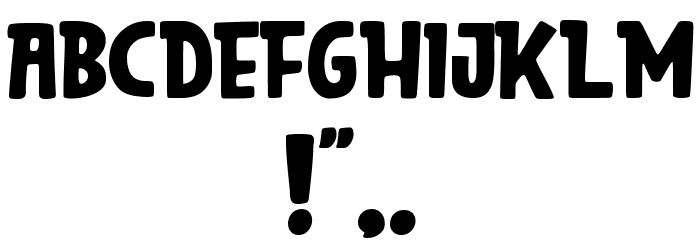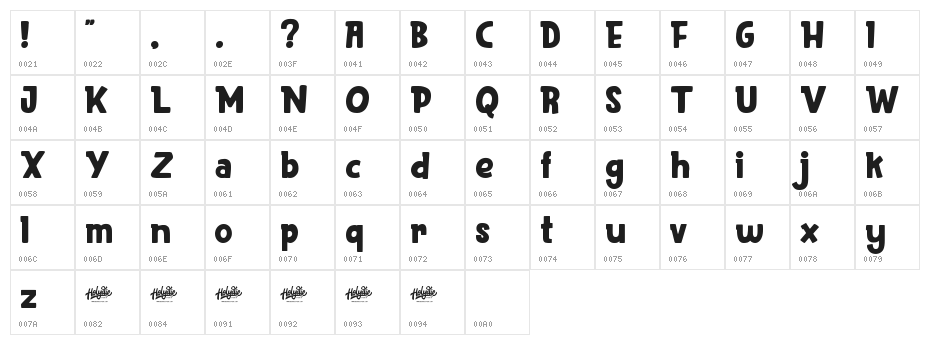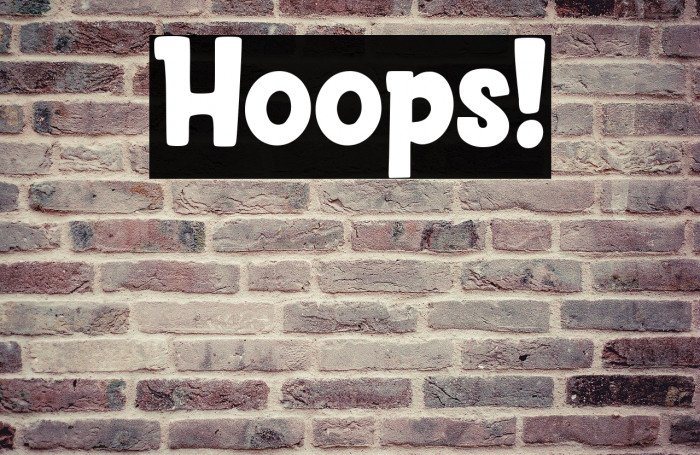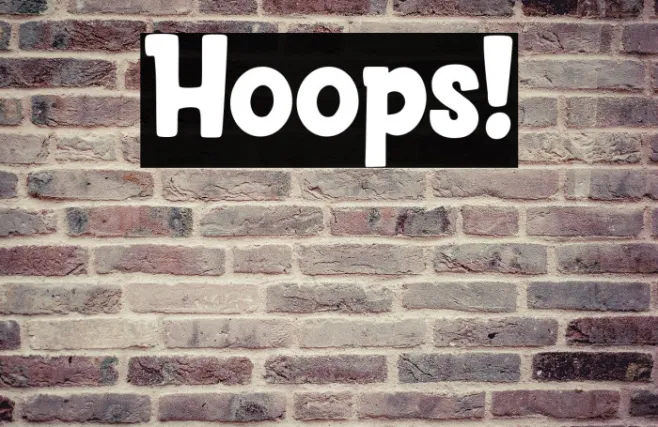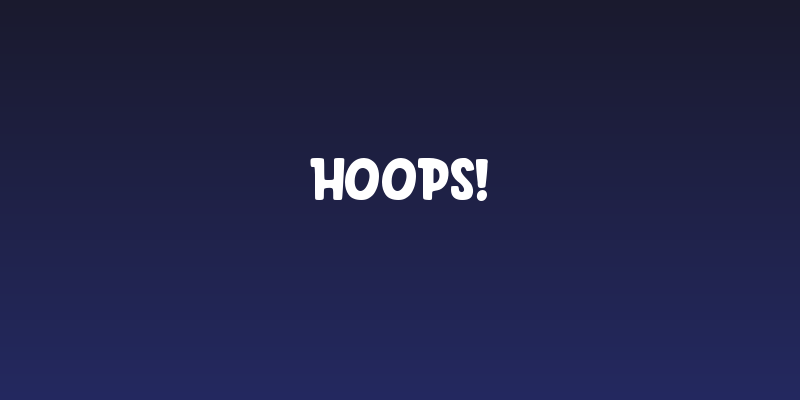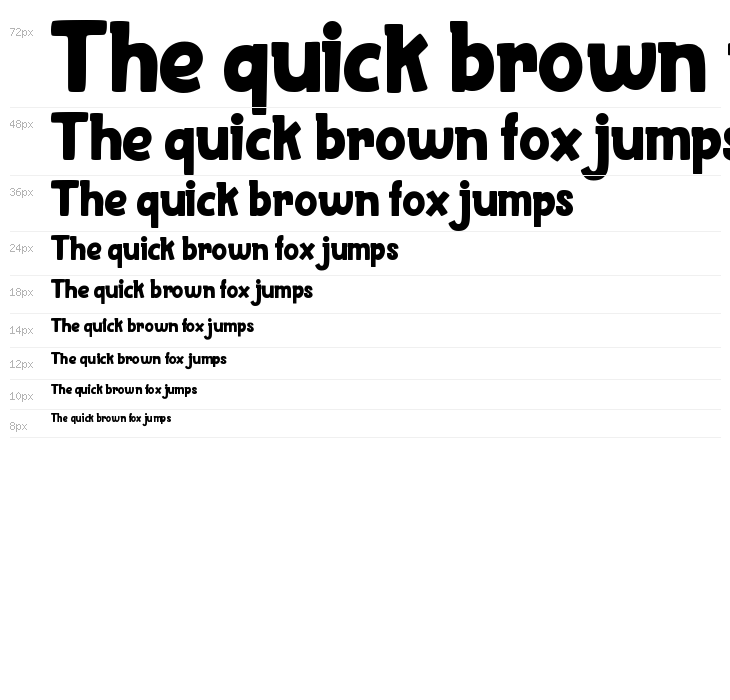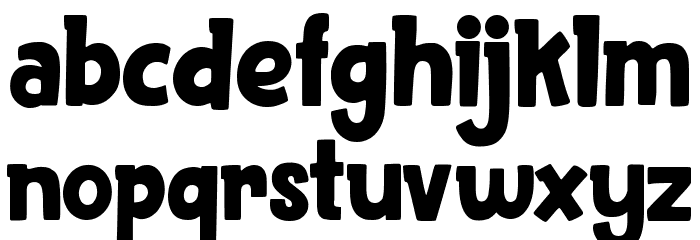
Hoops! Font
Hoops! Description
This font features a playful and bold style with rounded edges and a slightly irregular form, giving it a hand-drawn appearance. The uppercase and lowercase letters maintain a consistent weight, contributing to its bold presence. The characters are slightly condensed, enhancing the compact look. The font's whimsical nature is emphasized by its unique character shapes, making it suitable for creative and informal applications. The numbers and special characters follow the same playful design, ensuring a cohesive look across all elements.
| Proposed Projects | Ideal for children's books, playful branding, posters, and creative projects. |